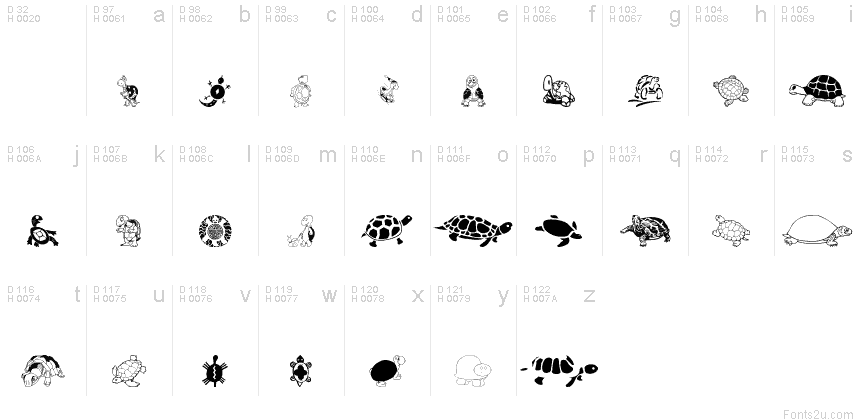
Keya's Turtles
Keya's Turtles font by Lime is a free cartoon dingbat typeface packed with expressive turtle characters, from goofy, wide-eyed heroes to simple outline shells ready for color. Each glyph feels hand-drawn and friendly, with inky lines, chubby feet, and charming little details that make the turtles almost wiggle on the page. The mix of solid black art and clean outlines lets you choose between bold, ready-to-print icons and shapes that invite kids to grab crayons.
Using Keya's Turtles, you can quickly build worksheets, coloring pages, classroom decor, birthday invitations, stickers, and playful storybook illustrations without hunting for separate clip art. This free font shines when set large, treating each turtle as a graphic, then paired with a rounded sans serif for captions or headlines. It’s an easy way to give any children’s project a consistent, cheerful animal theme in just a few keystrokes.